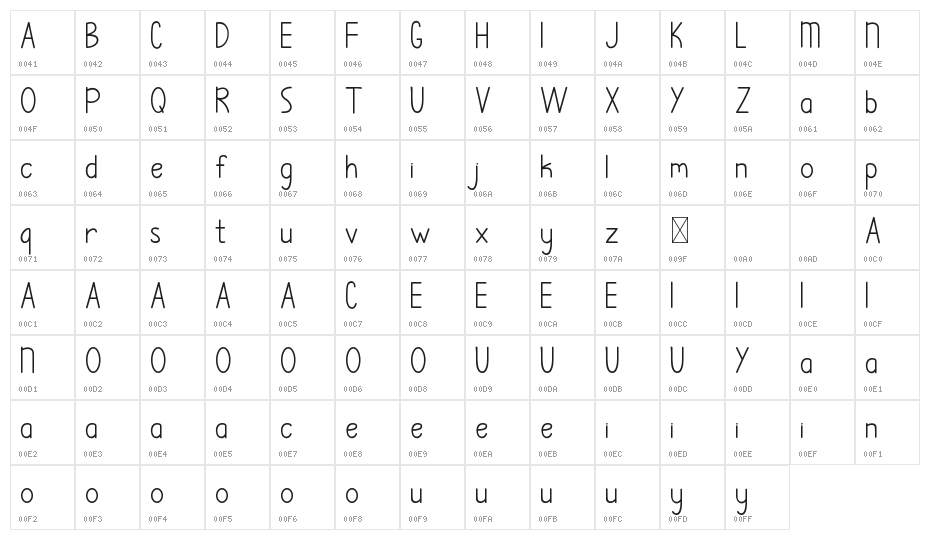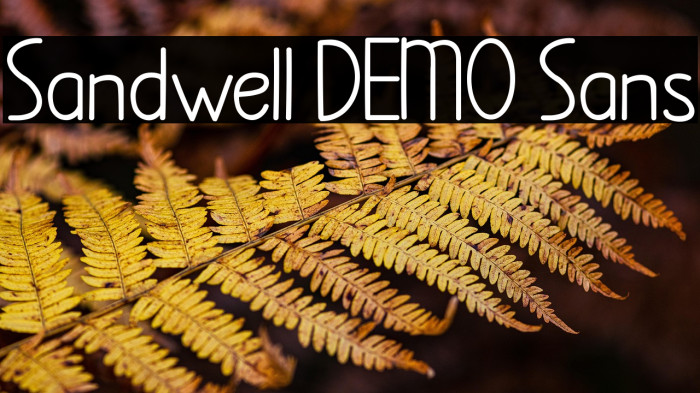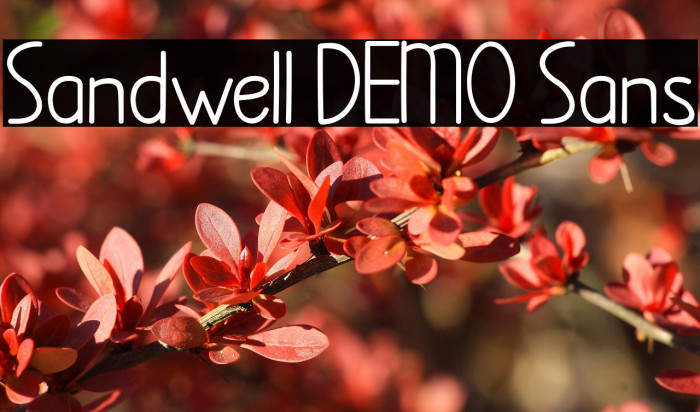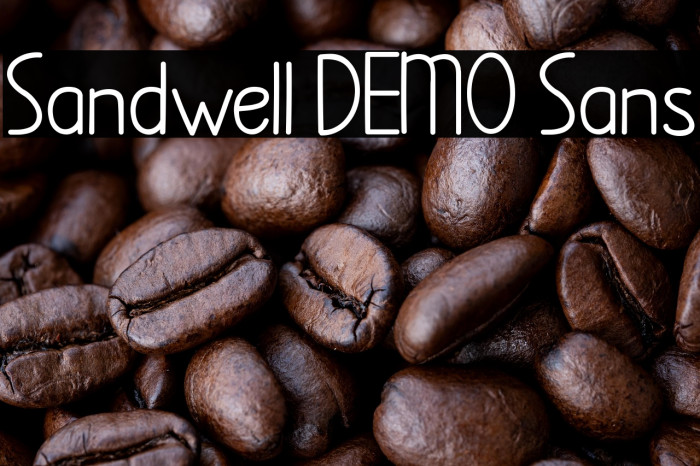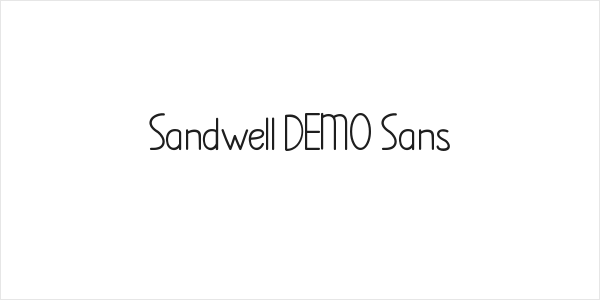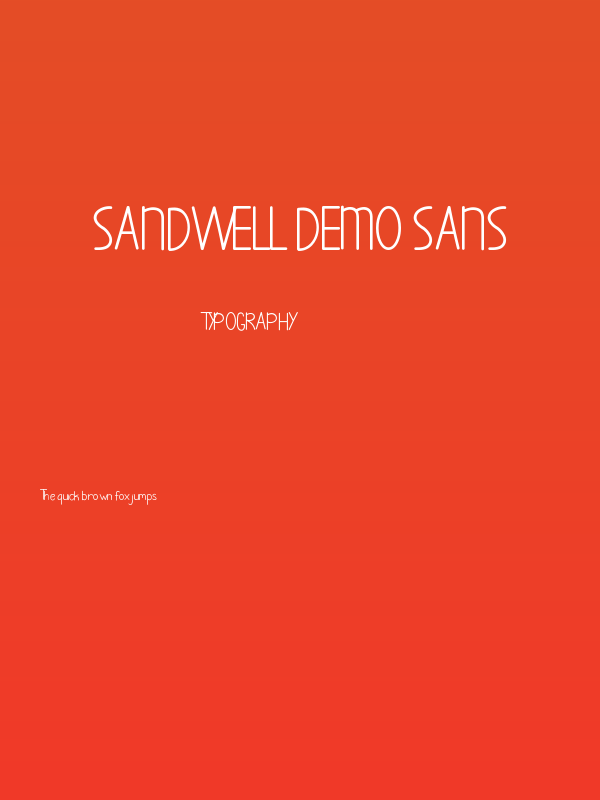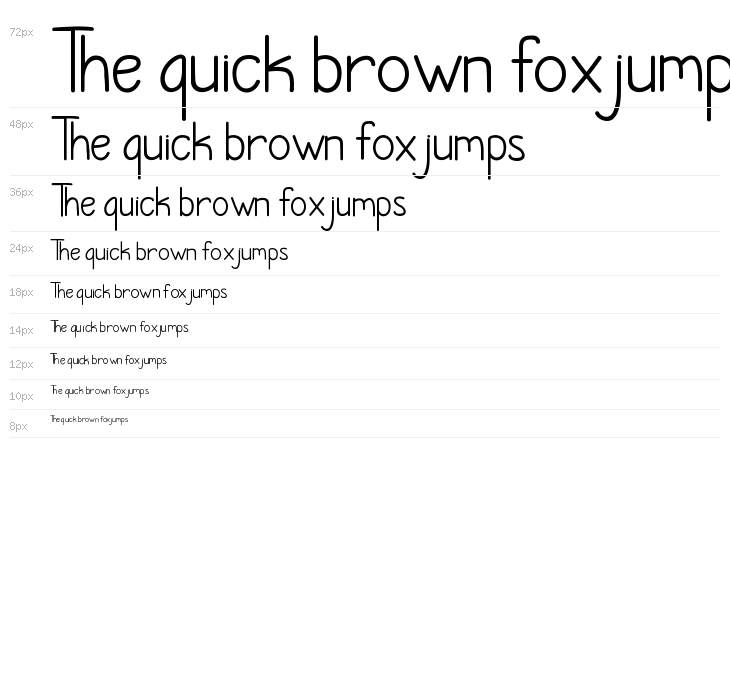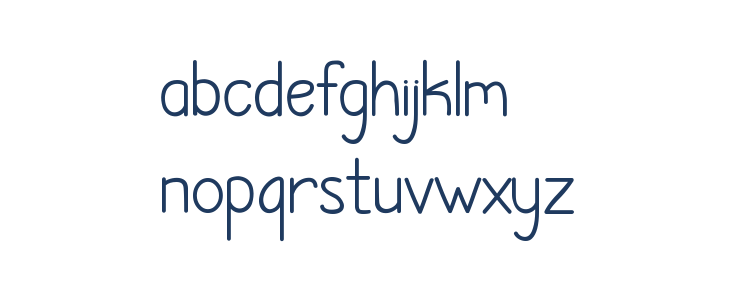
Sandwell DEMO Sans Font
Sandwell DEMO Sans Description
This font features a playful and modern sans-serif style with a clean and minimalist aesthetic. The characters are tall and narrow, giving it a distinctive elongated appearance. The strokes are consistent in width, providing a uniform look across all letters. The rounded edges add a friendly and approachable feel, making it suitable for casual and informal designs. The font maintains a balance between simplicity and uniqueness, making it versatile for various applications. Its legibility is high, even at smaller sizes, due to the clear and open design of each character.
| Use Case | Headlines, Logos, Web design |
| Proposed Projects | Ideal for children's books, playful branding, casual invitations, and modern web design. |